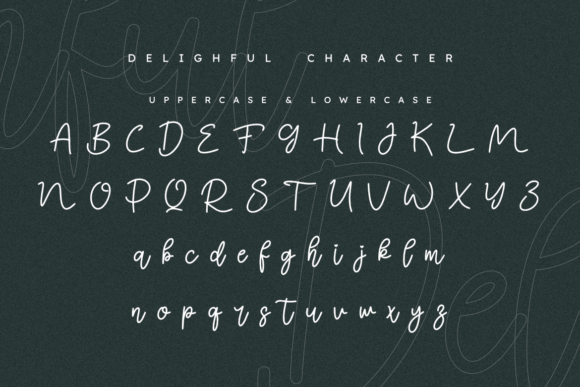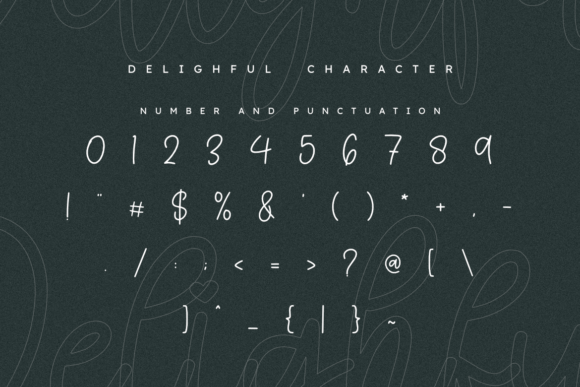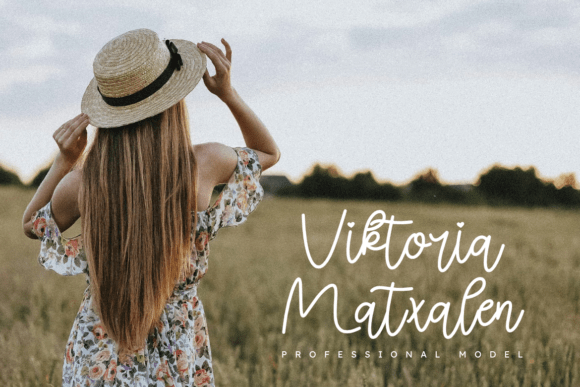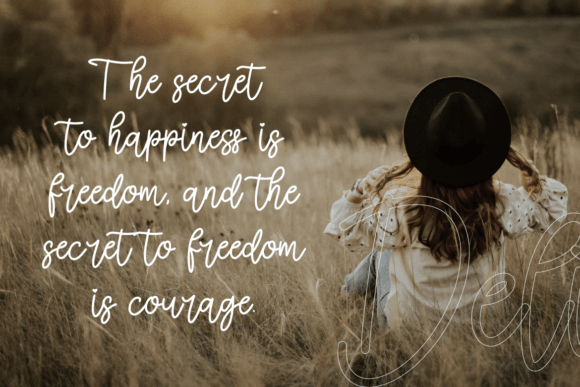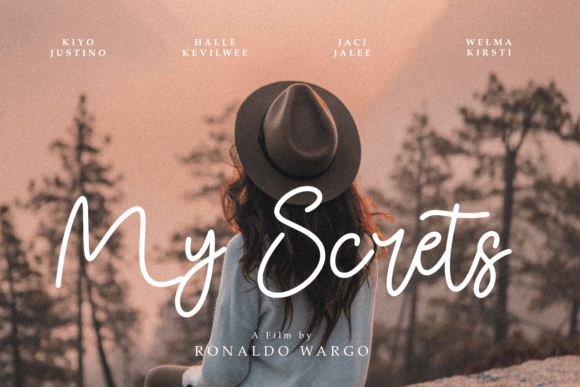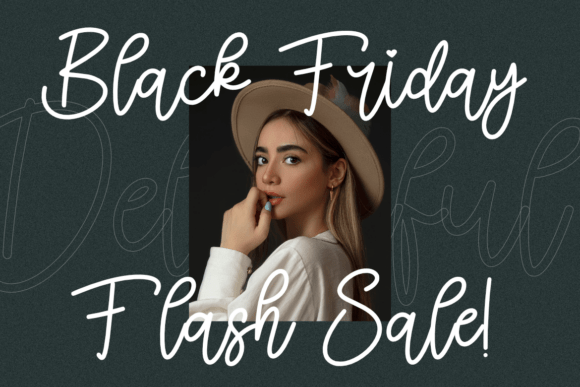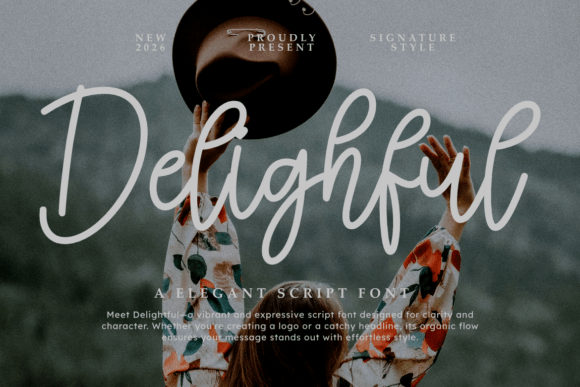
Introducing Delighful Font: Elevate Your Designs with Elegance and Flair
In the world of typography, a font can make or break the aesthetic of a design project. For designers and crafters seeking to infuse their creations with a touch of sophistication and personality, Delighful Font is an exceptional choice. This elegant and expressive script font is meticulously designed to bring a natural, handwritten flow to a wide array of creative endeavors. Whether you’re working on branding, logos, packaging, social media graphics, invitations, or editorial designs, Delighful is poised to add a warm and stylish touch that captivates audiences.
The Essence of Delighful Font
Delighful is more than just a font; it’s a design element that embodies clarity and character. Its smooth curves and balanced strokes are crafted to ensure readability and visual appeal, making it an excellent choice for both headline and supporting text in modern layouts. The font’s elegance shines through in its fluid connections and graceful letterforms, which evoke a sense of sophistication and refinement.
One of the standout features of Delighful Font is its versatility. It is designed to work beautifully in various contexts, from large-scale branding projects to more intimate, personal crafts. This adaptability makes Delighful an invaluable asset for designers who need a reliable, high-quality script font that can seamlessly integrate into different design scenarios.
Technical Excellence and Compatibility
Practical Applications for Designers and Crafters
Delighful Font’s practical applications are vast and varied. Here are a few scenarios where this font truly shines:
- Branding and Logos: Use Delighful to create a memorable brand identity that exudes elegance and professionalism.
- Packaging: Add a touch of sophistication to product packaging, making it stand out on store shelves.
- Social Media Graphics: Elevate your social media presence with eye-catching graphics that showcase Delighful’s stylish charm.
- Invitations: Create bespoke invitations for special occasions that reflect the event’s tone and style.
- Editorial Designs: Enhance articles, blogs, and magazines with a font that adds character and warmth to the text.
Delighful Font is a remarkable addition to any designer’s or crafter’s toolkit. Its elegant script, versatility, and technical compatibility make it an ideal choice for a myriad of creative projects. With Delighful, you can infuse your designs with a sense of style and sophistication that resonates with audiences. Whether you’re a seasoned professional or an enthusiastic hobbyist, Delighful Font invites you to explore new dimensions of typographic excellence.